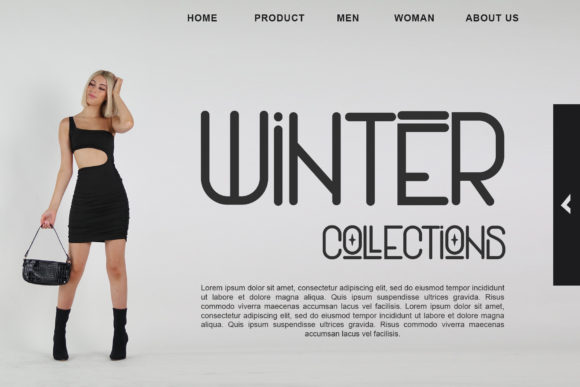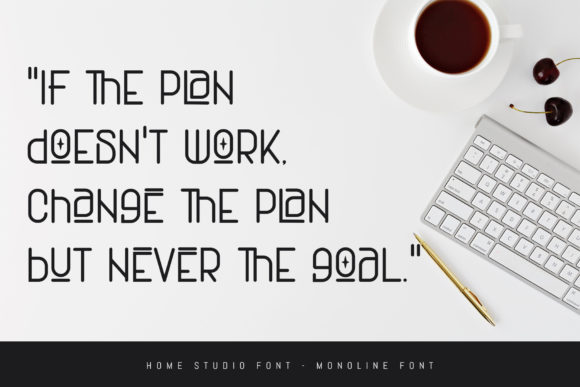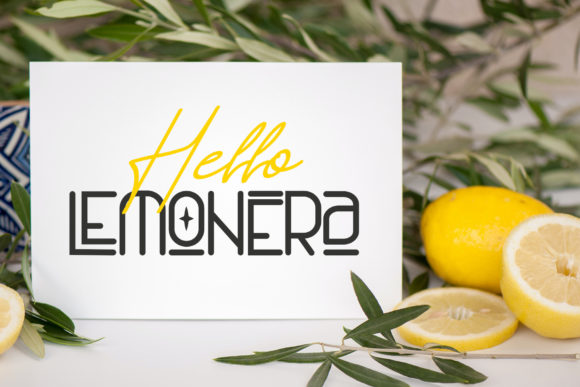
Introduction to Home Studio Font
Have you ever stared at a blank canvas, waiting for that spark of inspiration to strike? The blank page stares back, taunting you to create something truly unique. This is where the Home Studio Font comes in – a cool and modern display font that brings your creative project to life. Its sleek design and high-quality aesthetic make it the perfect design resource for designers seeking to elevate their work.
Whether you’re working on a web design, business card, or any other creative project, the Home Studio Font is a valuable addition to your toolkit. With its transparent background, it seamlessly integrates with your design, allowing your message to shine through. And the best part? This stunning font is available for free download, making it an accessible and exciting resource for designers of all levels.
Key Features of Home Studio Font
- High-quality design resource ideal for creative projects, including music, art, and video production.
- Features a transparent background, allowing for easy customization and layering in design applications.
- Comes in a range of sizes, from 12 to 72 points, making it suitable for various design elements, from headings to body text.
- Resolution: 300 DPI, ensuring crisp and clear text even at high magnifications.
- Unique characteristics include a modern, minimalist aesthetic and a wide range of stylistic alternates for added versatility.
Honest Review: Home Studio Font
As a designer, I’m always on the lookout for high-quality design resources to elevate my creative projects. Recently, I stumbled upon the Home Studio Font, and I must say it’s been a game-changer. The font’s sleek and modern design is perfect for any project, from brochures to social media graphics.
What works well: ✨ The font’s transparent background allows for seamless integration with any background image or color, making it a versatile design resource. ✨ The font is also free to download, which is a huge plus for indie designers or those on a tight budget. ✨ The font’s modern design is perfect for creative projects that require a touch of sophistication.
- Modern design suitable for various creative projects
Limitations: ⚠️ The font is only available in a single weight, which may not be suitable for projects that require a range of font weights. ⚠️ The font’s design may not be suitable for more traditional or conservative designs.
Overall impression: The Home Studio Font is a solid addition to any designer’s toolkit. Its modern design, transparent background, and free download make it a high-quality design resource that’s perfect for a variety of creative projects. Give it a try and see how it can elevate your next design project!
Tips for Getting the Most Out of Home Studio Font
Experiment with different font sizes and styles to create visually appealing designs. Additionally, pair Home Studio Font with other design elements to create a cohesive look for your project.
Home Studio Font is commonly used for branding, marketing materials, and social media graphics. Its high-quality design and transparent background make it an ideal choice for a variety of creative projects.
Montserrat Font is similar to Home Studio Font in terms of its clean design, but it has a more modern and edgy feel. It’s perfect for use in logos, headings, and body text, especially in creative projects that require a bold and eye-catching design.
Open Sans Font is a highly legible sans-serif font that’s perfect for digital design projects. It features a transparent background and a clean design, making it suitable for use in a variety of creative projects. You can download Open Sans Font for free and use it for both personal and commercial projects.